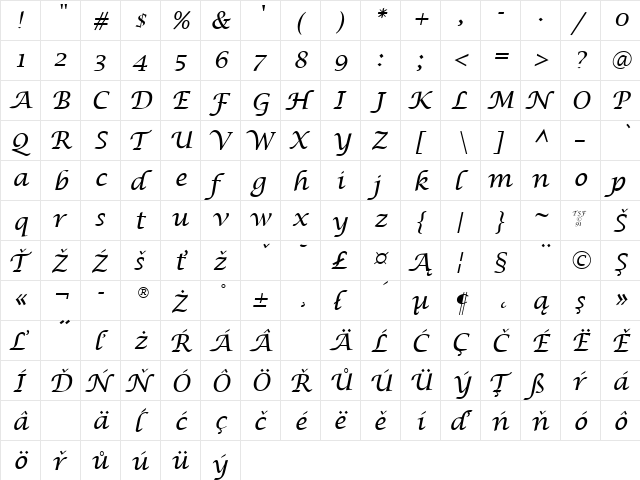
Cally CE Regular
Design Context for Cally CE Typeface
Cally CE is a composed and adaptable typeface that performs quietly and consistently across a wide range of design contexts.